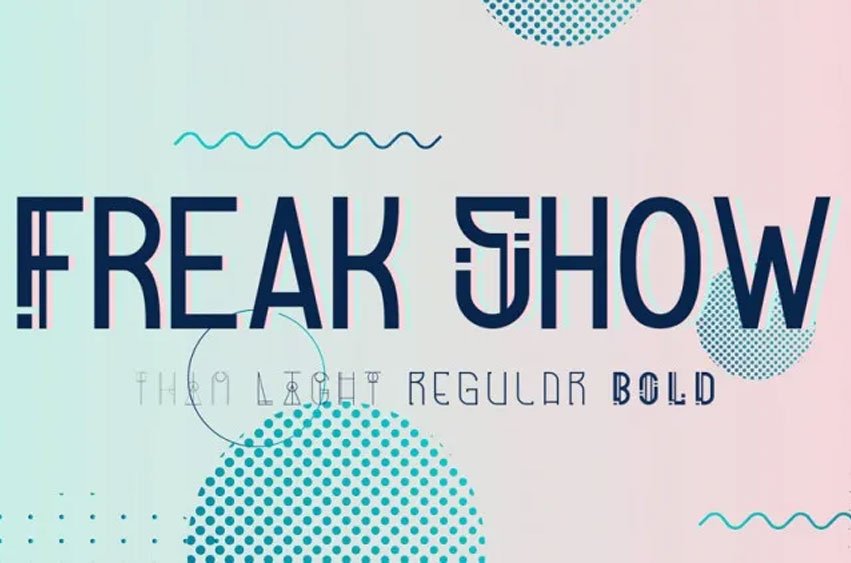
Freak Show Font is the new typeface that can be considered a work of applied art based on the shapes that can be described as geometric. Available in 4 sizes from Thin to Bold, each size also has its own style.
It has all capital letters and their equivalents in the lowercase, the font encodes Latin and Cyrillic. Freak Show font is suitable for use in posters, logos, other works in Futuristic style and many other creations.